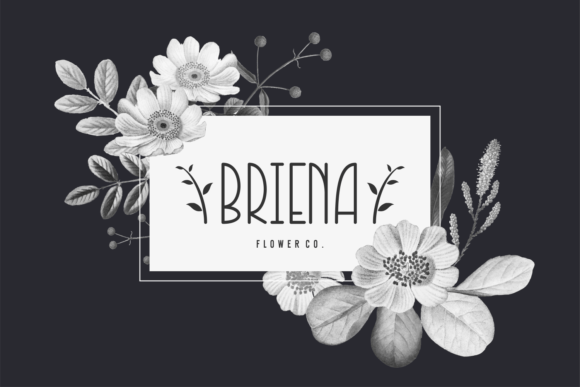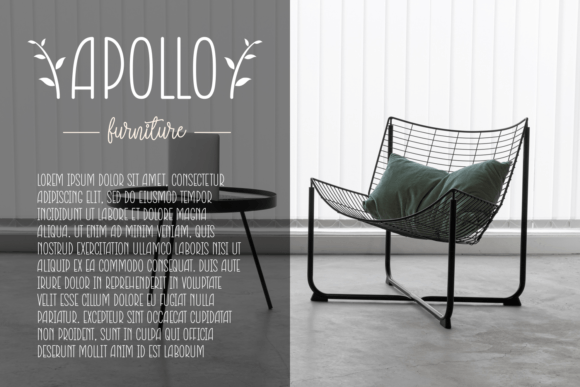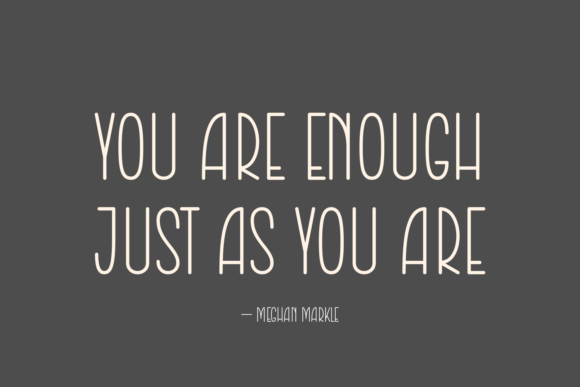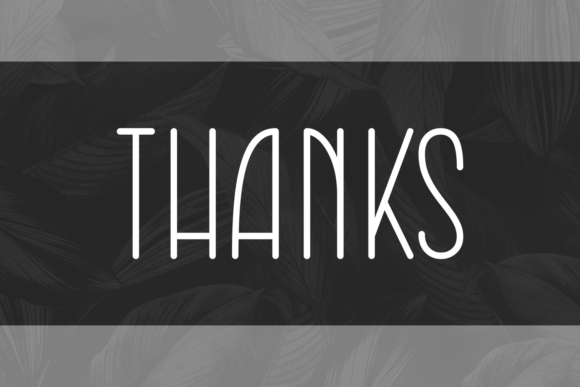
Introduction to Meria Font
Meria is a clean and uncomplicated sans-serif font.
Its simplicity makes it easy to read and perfect for a variety of projects With straightforward lines and a modern touch, Meria brings a fresh and contemporary feel to your text.
Key Features of Meria Font
Why Choose Meria Font?
Meria Font offers exceptional quality and versatility, making it a valuable addition to your design toolkit. Whether you’re creating for personal projects or commercial use, Meria Font delivers professional results.